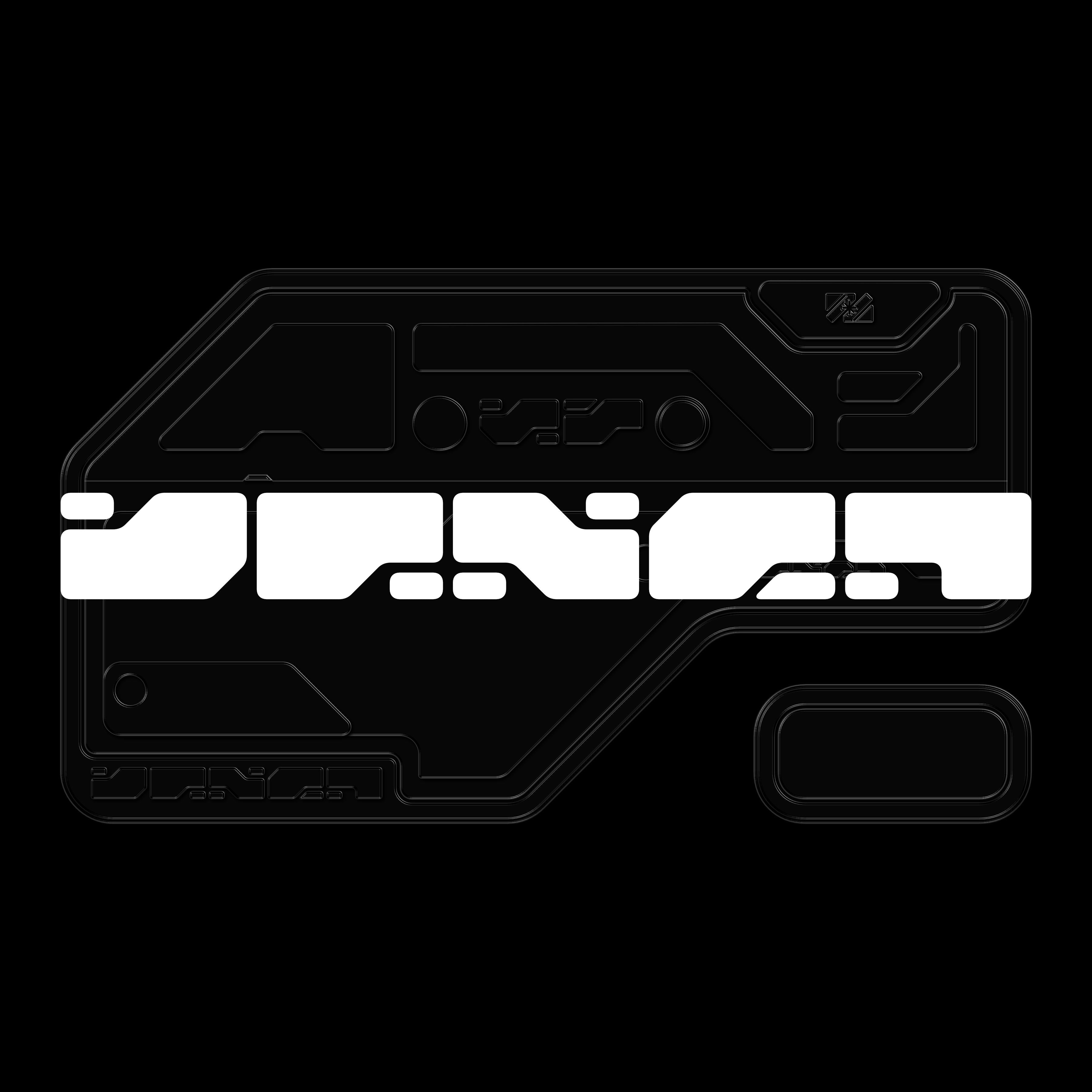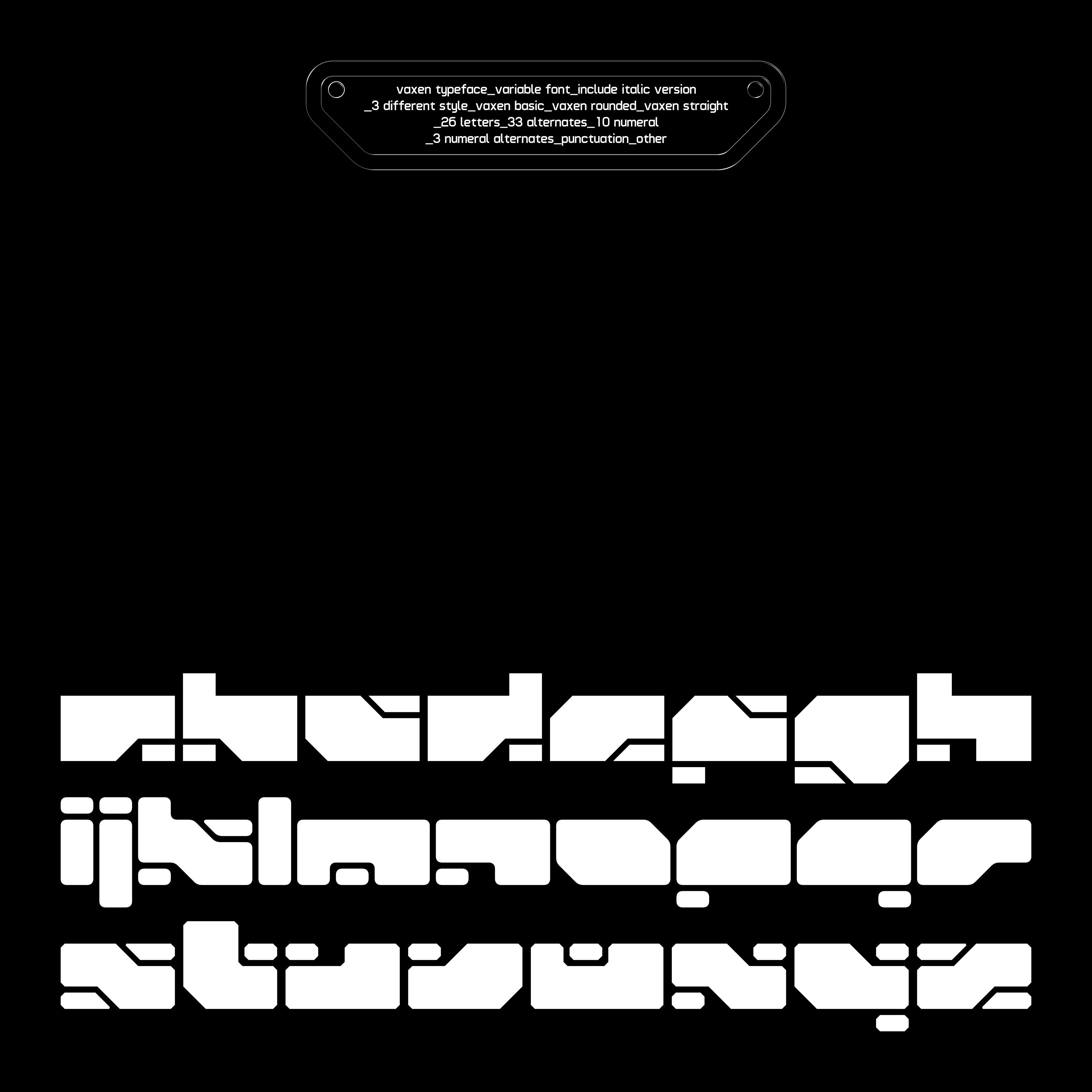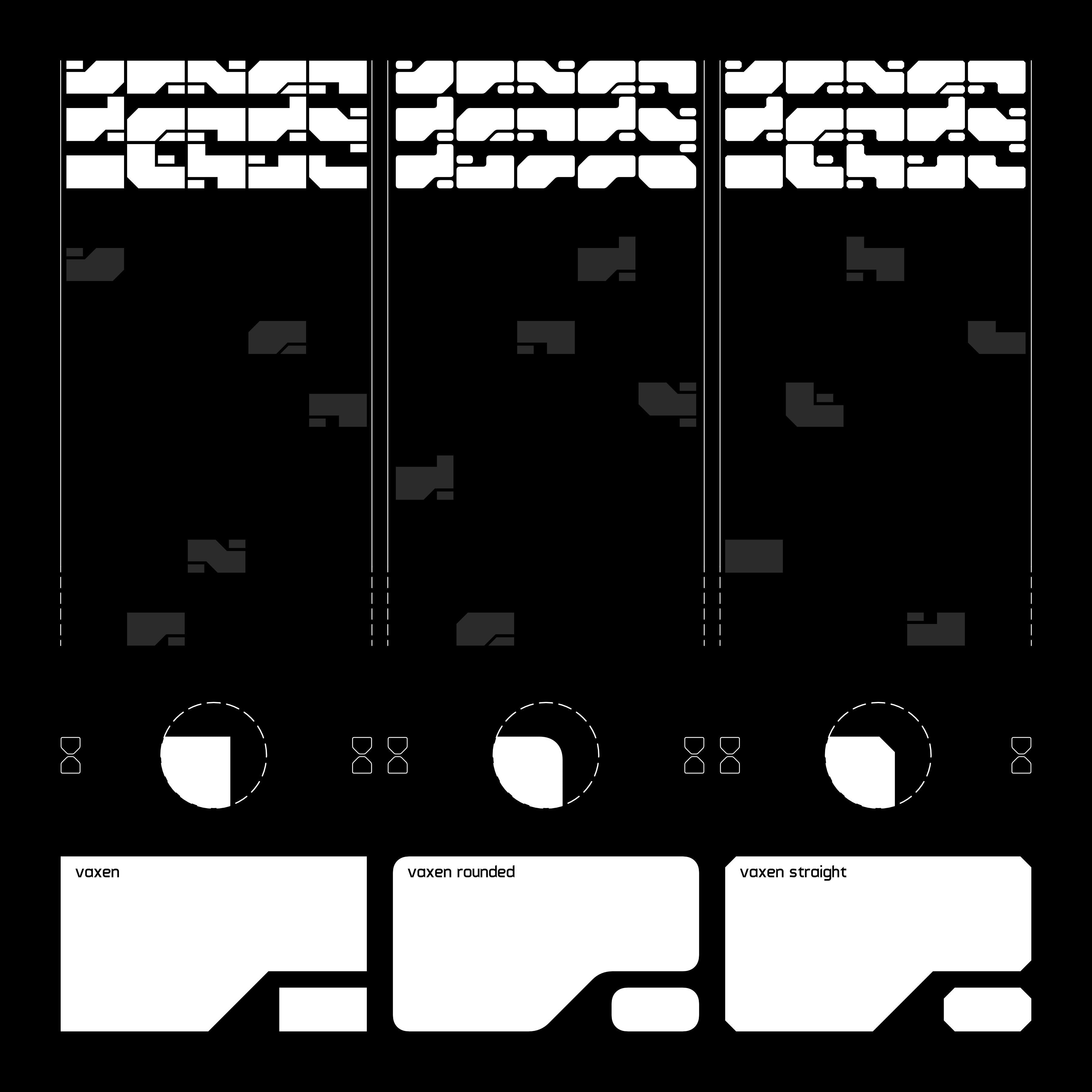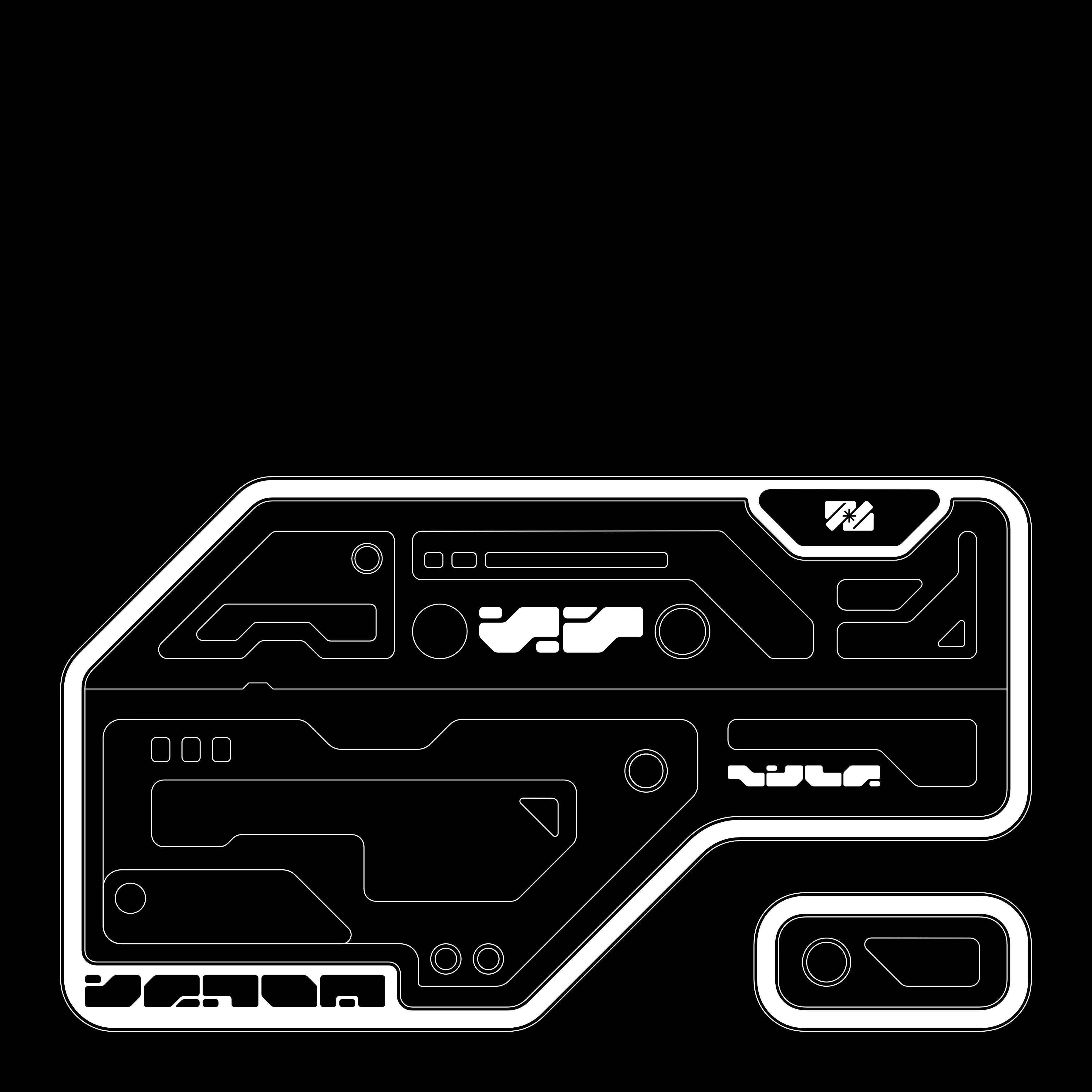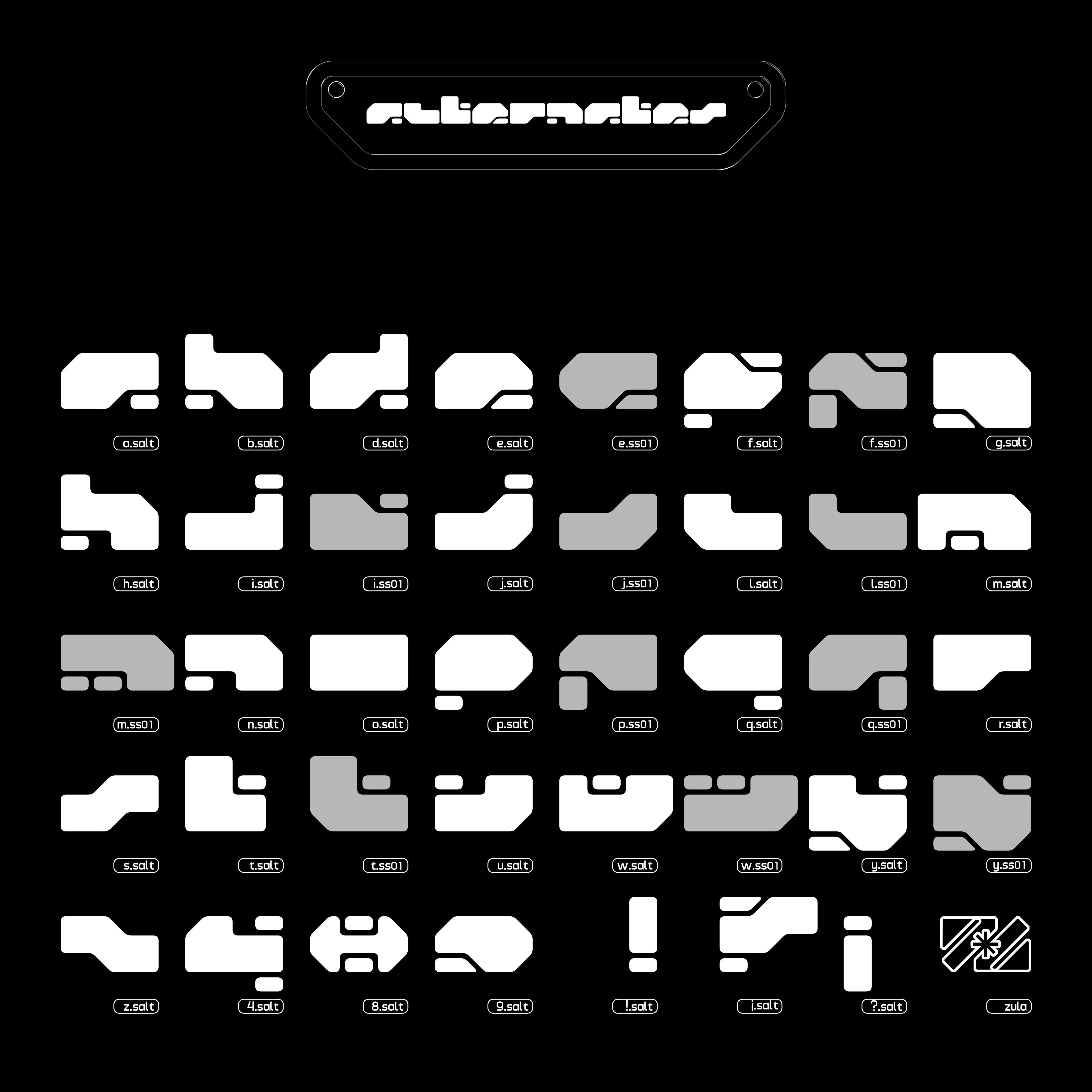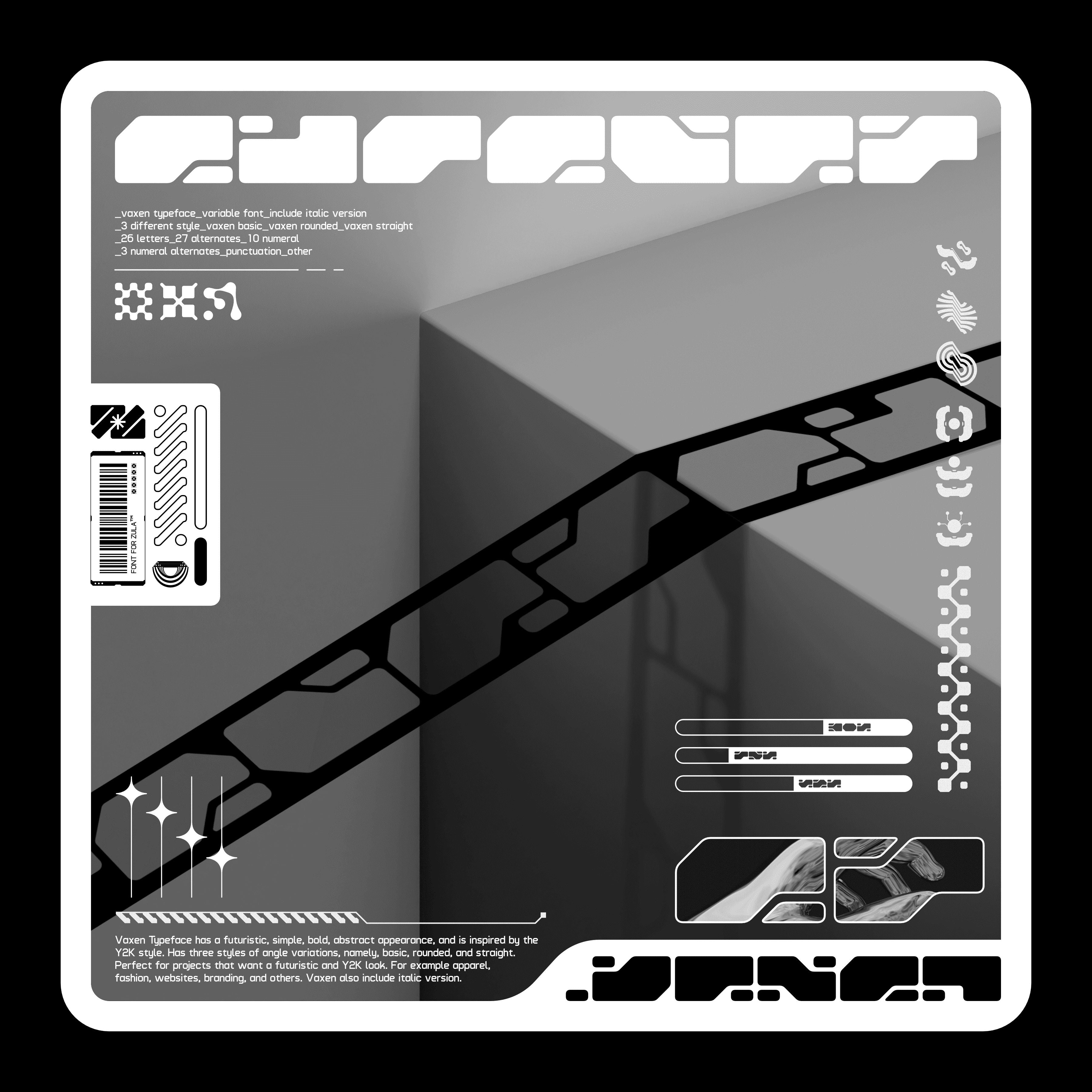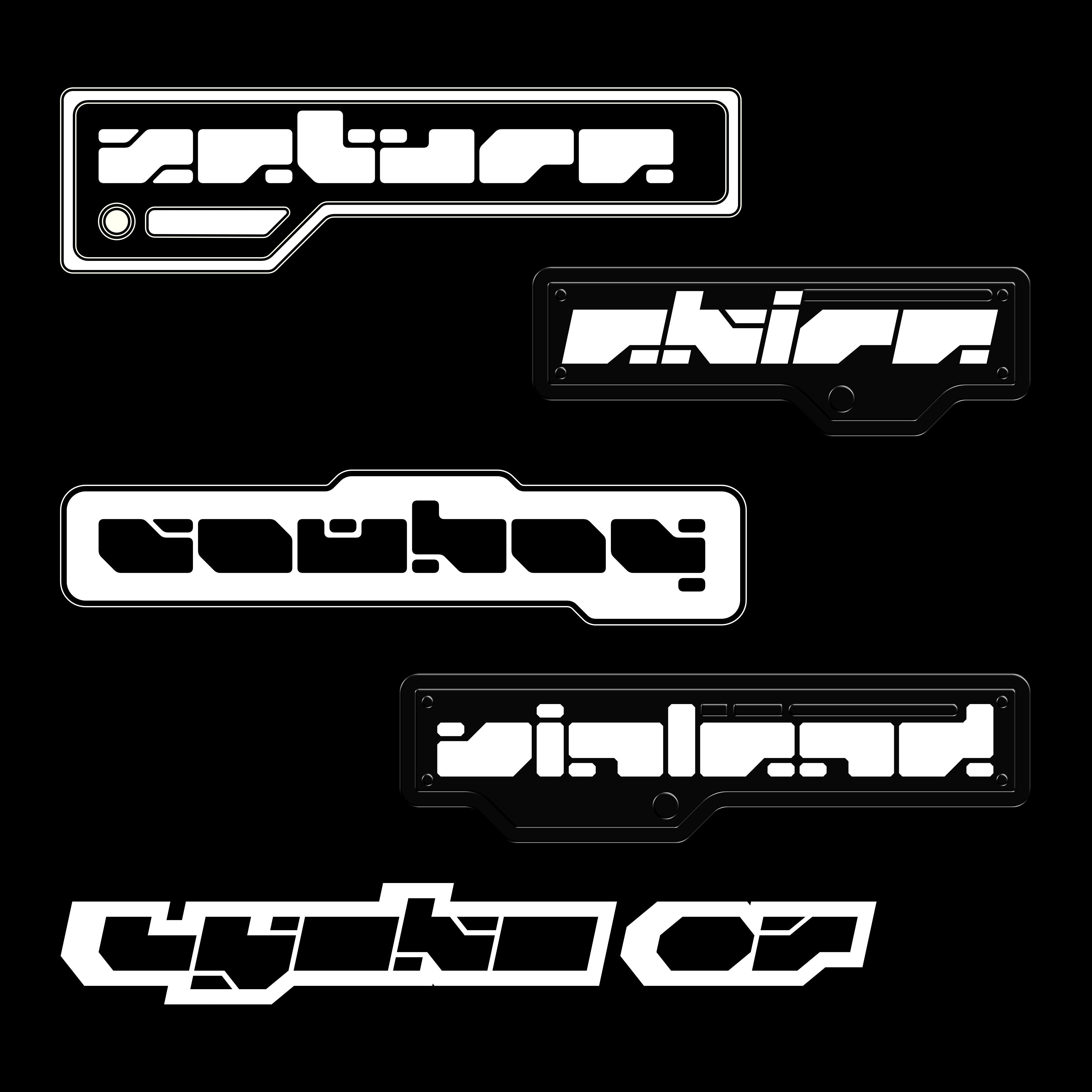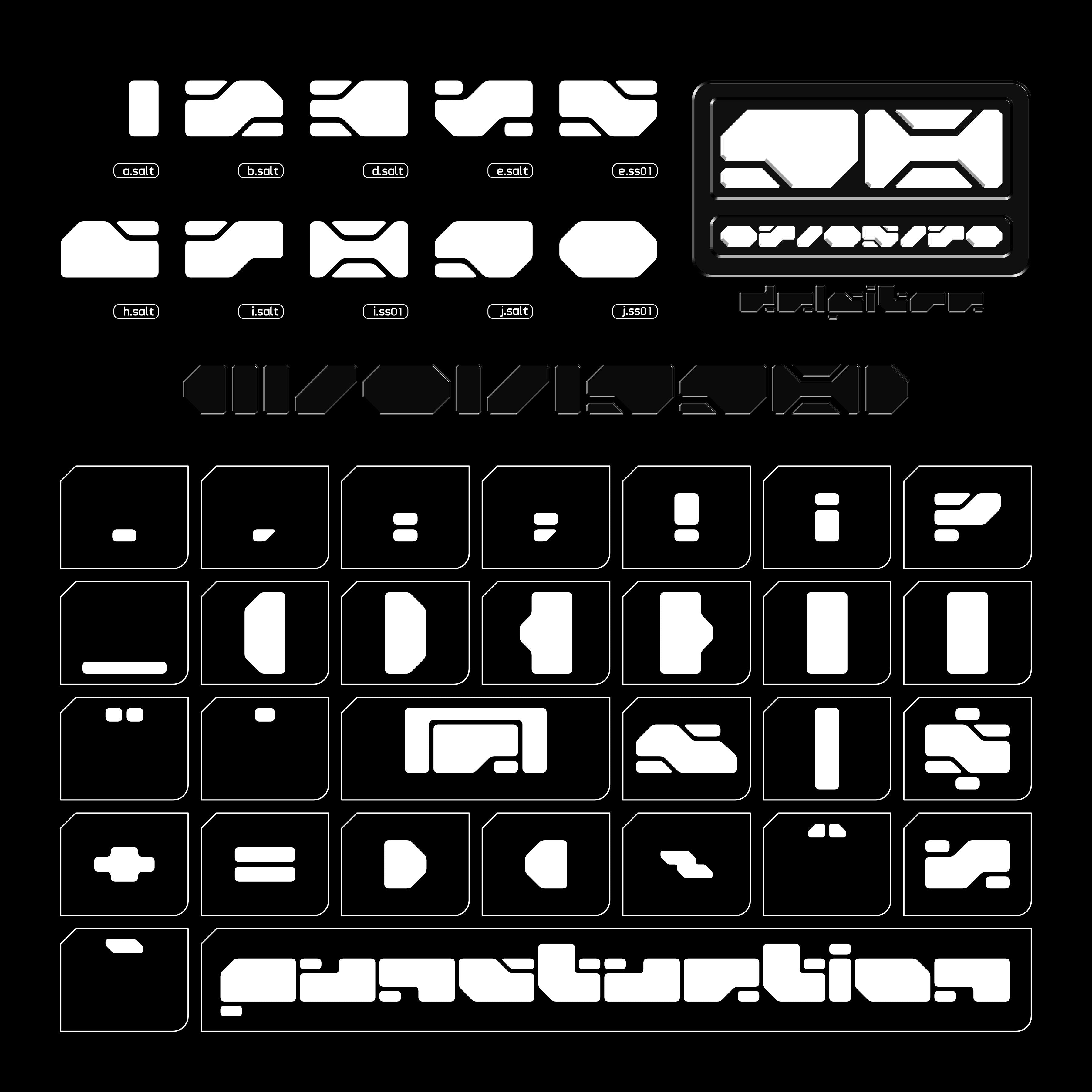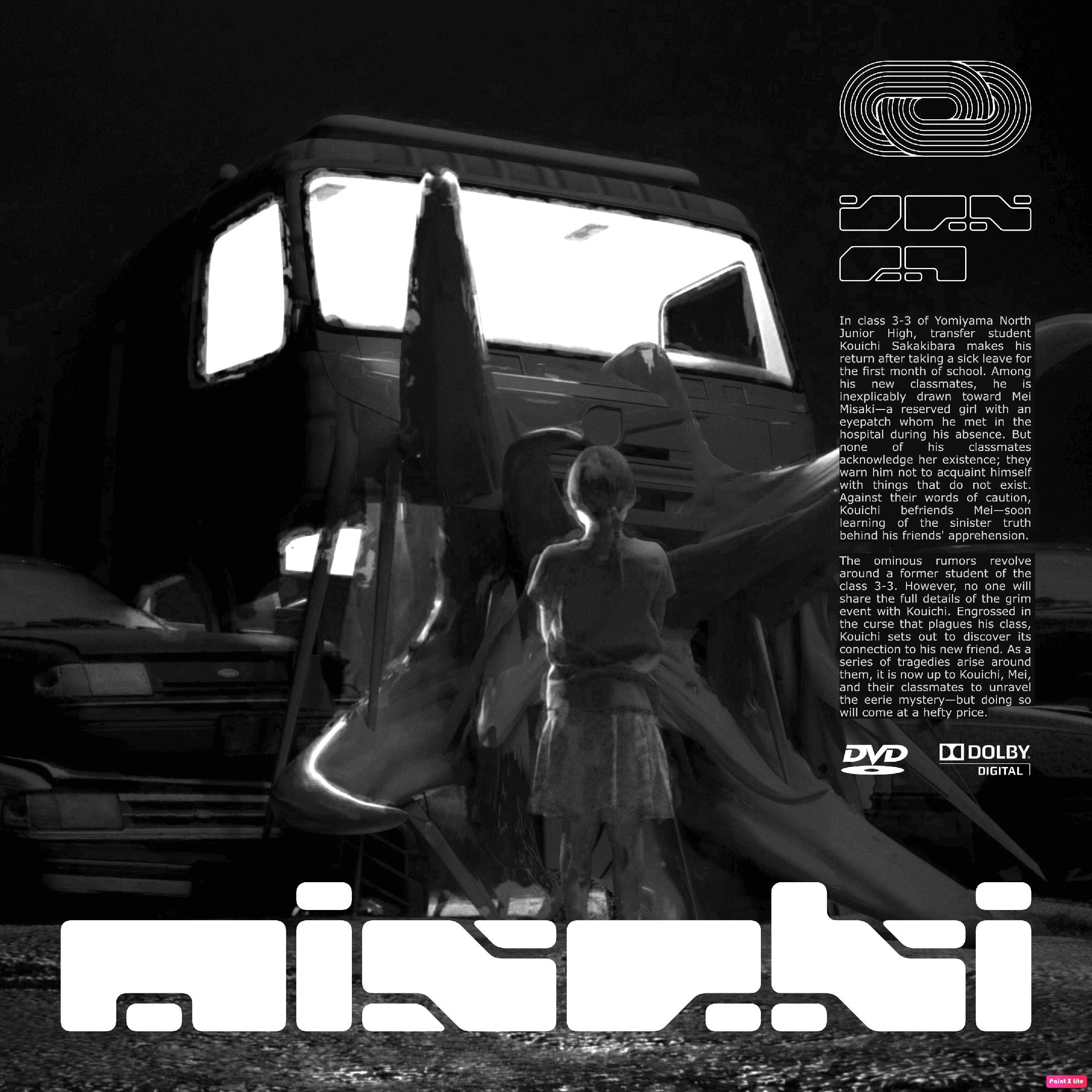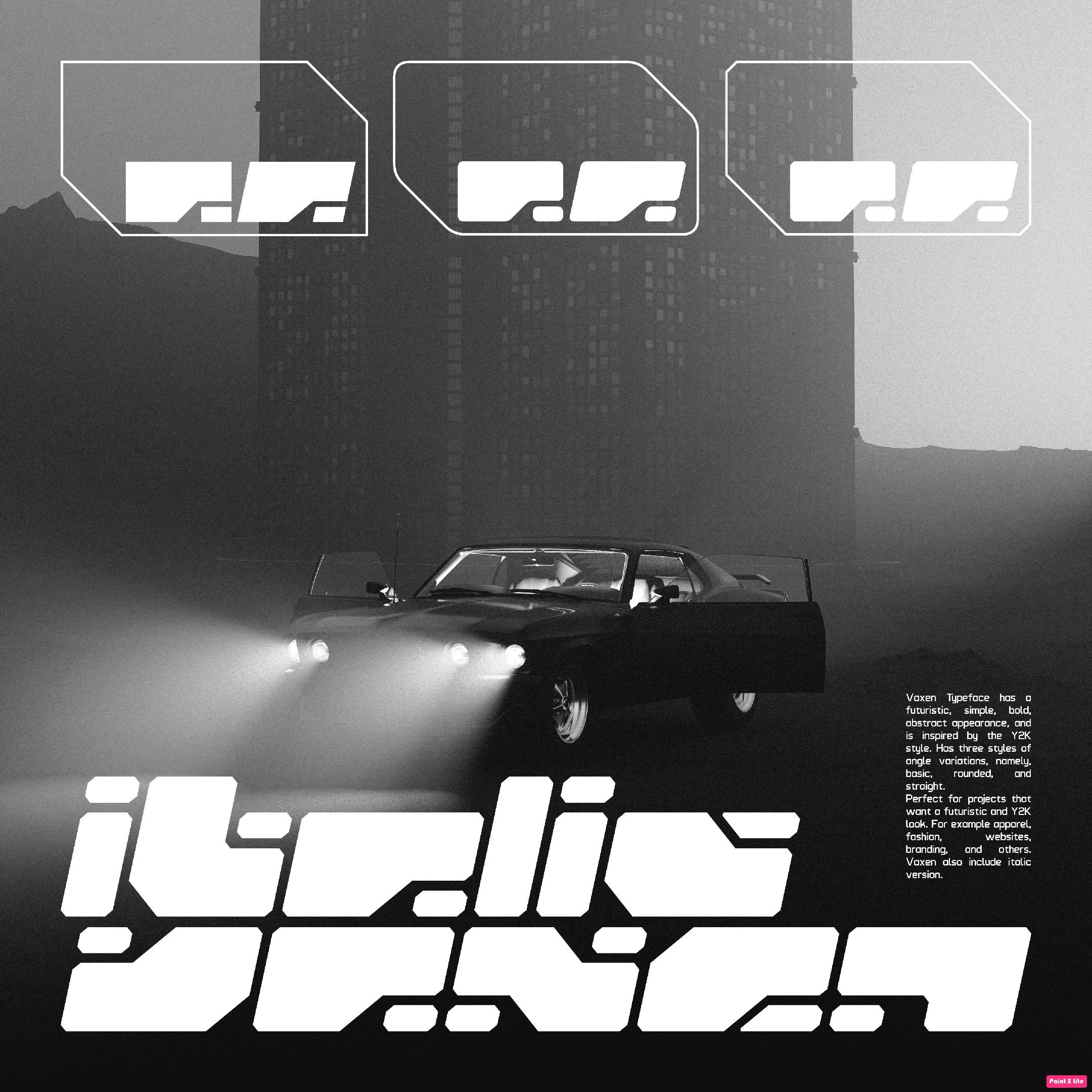
VAXEN 書体
The VAXEN Typeface is a Variable Font with a futuristic, Y2K-inspired design. It offers three styles: basic, rounded, and straight, as well as an Italic style. The typeface includes 26 letters, 33 alternates, 10 numerals, 3 numeral alternates, and punctuation.
Ideal for futuristic and Y2K-inspired graphic design projects. Perfect for apparel, fashion branding, website design, and promotional materials, ensuring a bold and contemporary aesthetic that captures attention.